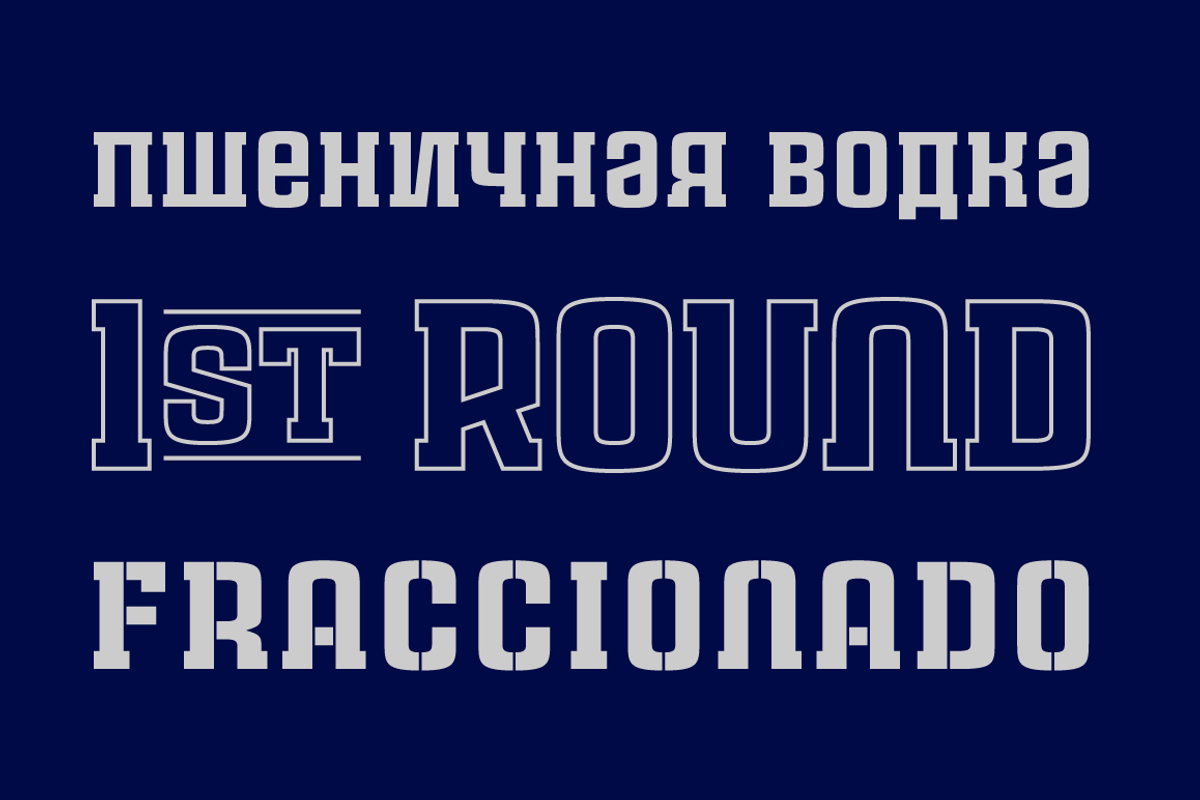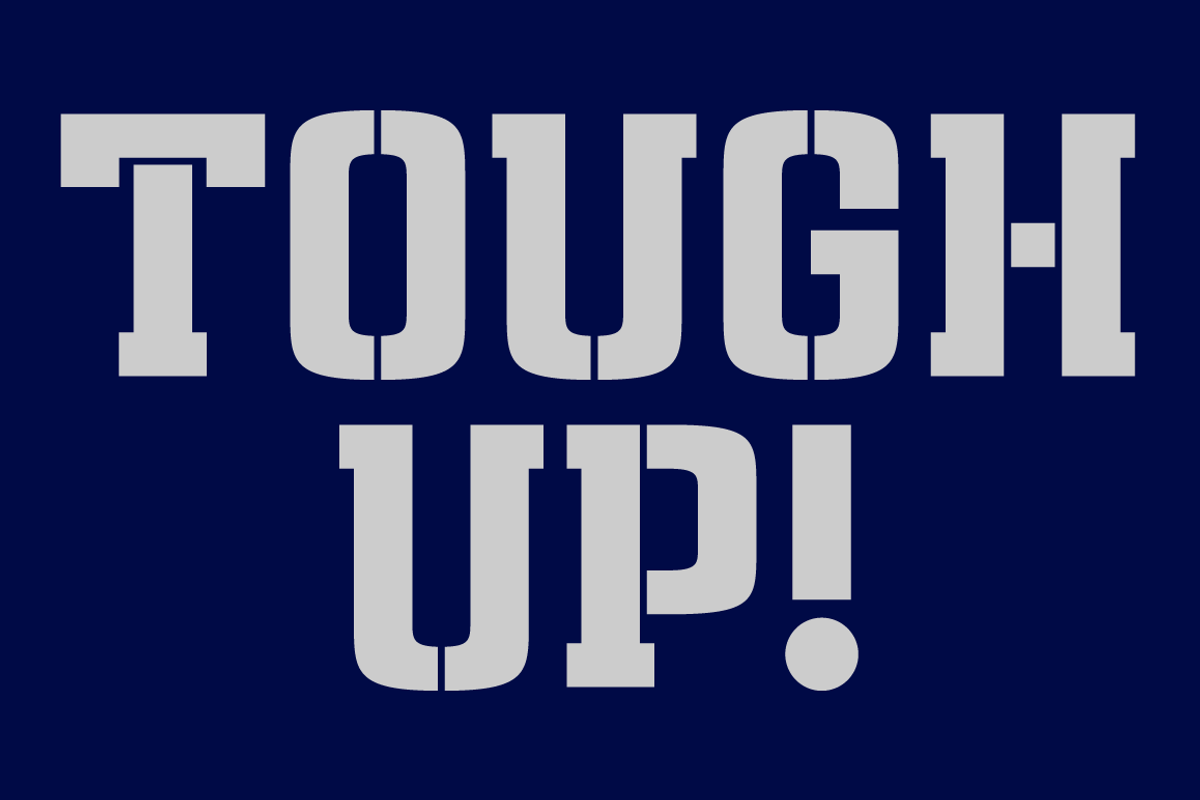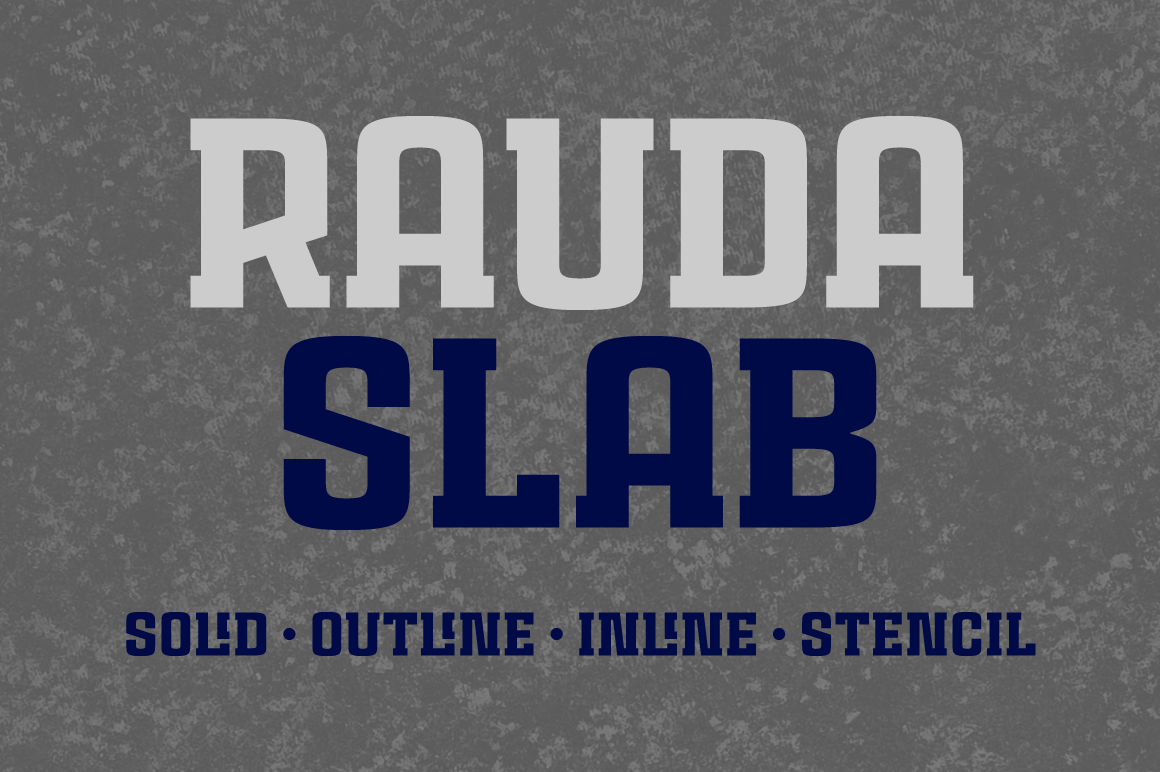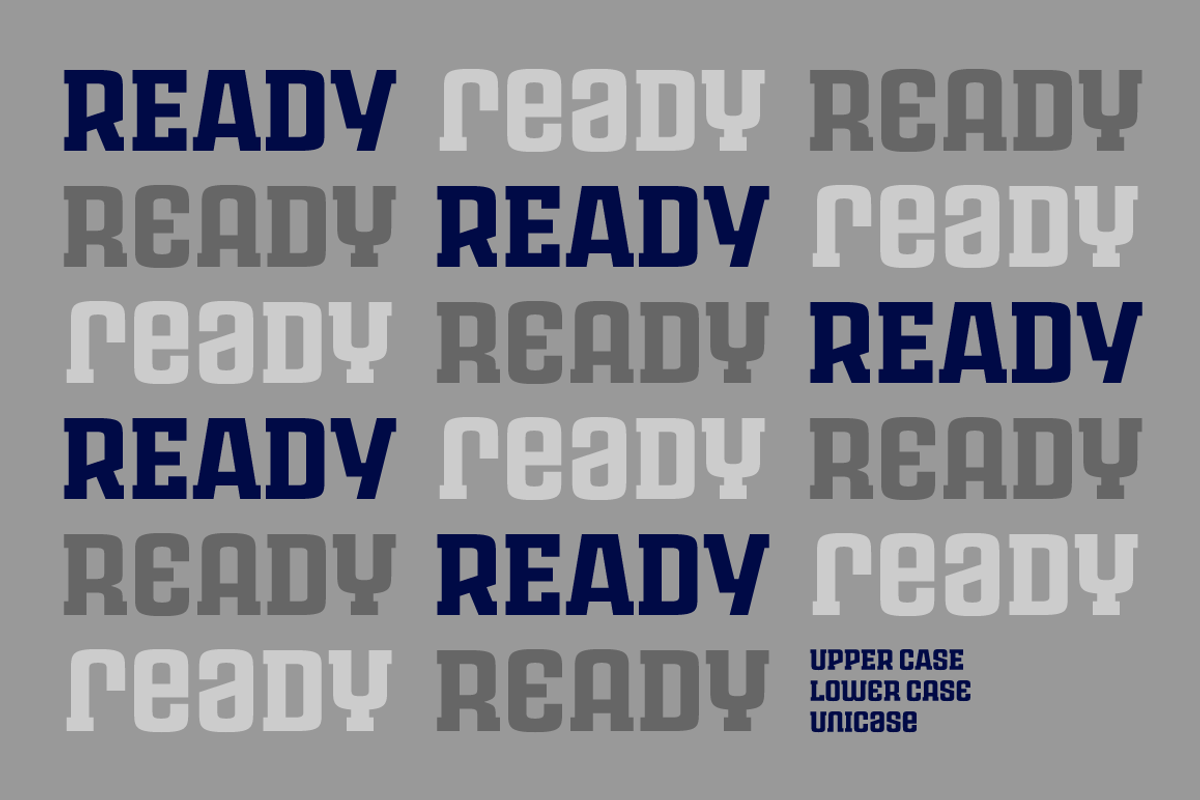
Rauda Slab Font Family
Designer: Pablo Balcells
Design date: 2017
Rauda Slab font family has been designed for Graviton Font Foundry by Pablo Balcells in 2017. It is a display, slab serif, geometric typeface, with sharp angles that provides a strong and solid appearence.
Rauda Slab consists of 8 styles. Each containing glyph coverage for several languages.